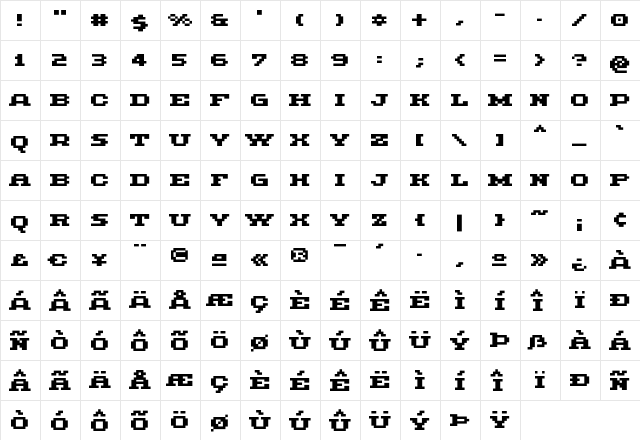
Methodic Bold
Design Context for Methodic Typeface
Methodic offers clean, dependable letterforms without strong stylistic allegiance, making it a practical choice for designers who need flexibility. Its bold stroke weight gives it real presence on the page.